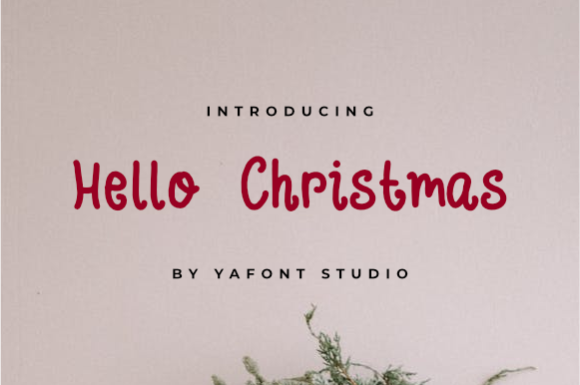
HomeScript FontsHellow Christmas Font Script Fonts Hellow Christmas Font FacebookXPinterestWhatsApp 1 of 3 Hellow Christmas Font Poster 2... Hellow Christmas Font Poster 3... About Hellow Christmas Font Hellow Christmas is a friendly handwritten font. This is the perfect font for making beautiful designs! DOWNLOAD NOW People also explored Hey Holiday Font Xmas Mug Font Blipzoid LIVIATICA Font Bettarhiya Font Twee Houdini Signature Font Blessed Eid Font 264 0 TagsHellow Christmas Font Previous articleRochestar FontNext articleTaro Flowers Font LEAVE A REPLY Cancel reply Comment: Please enter your comment! Name:* Please enter your name here Email:* You have entered an incorrect email address! Please enter your email address here Website: Save my name, email, and website in this browser for the next time I comment. Personal Use Free Winner Personal Use Free Read more about this font Po Beef Personal Use Free Read more about this font Penelope Brush Script Font Personal Use Free Read more about this font Remember Personal Use Free Read more about this font BLOG Modern Sans-Serif Fonts That Brands Love in 2025 In 2025, modern sans-serif fonts remain a top choice for brands looking to project clarity, professionalism, and... The 10 Best Handwriting Fonts to Add Personality to Your Designs How to Install and Use Fonts on Windows, macOS, and Web Projects 5 Fonts That Will Dominate Design Trends in 2026